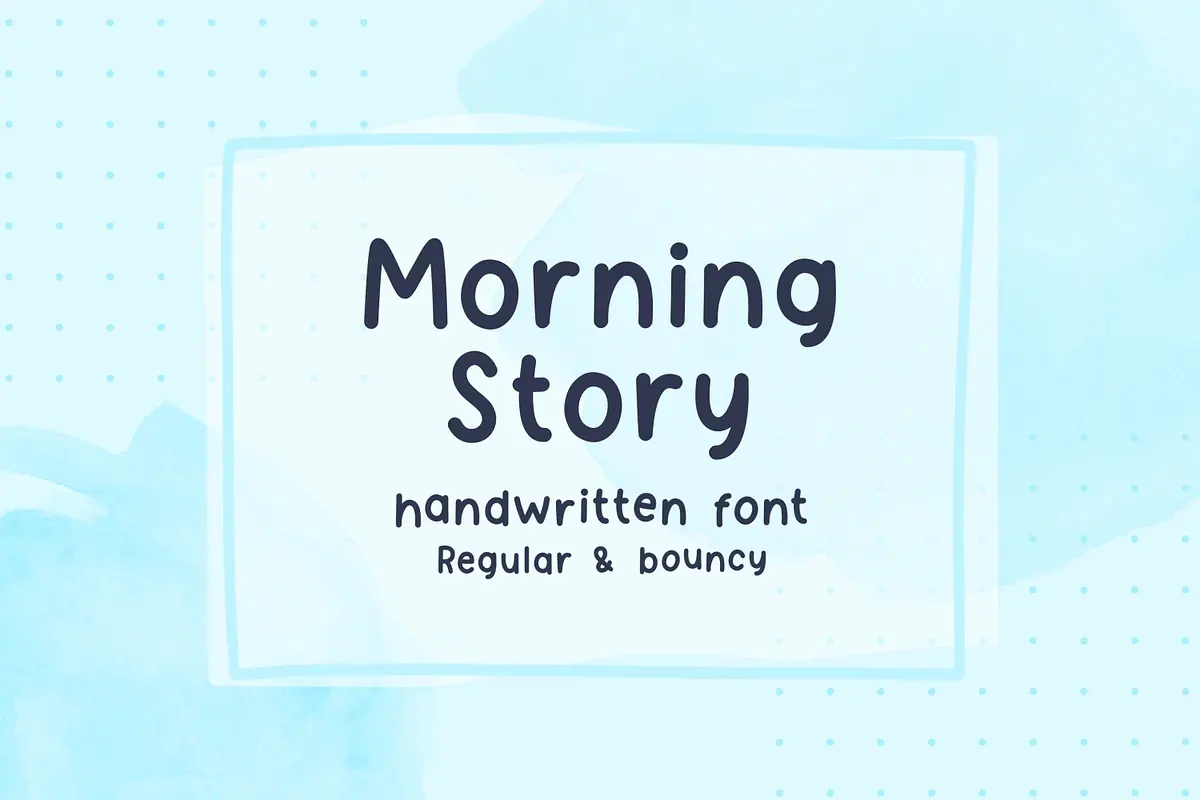
Morning Story cute handwritten font Free Download
Morning Story Cute Handwritten Font Free Download
Morning Story Cute Handwritten Font Free Download is an adorable and heartwarming typeface that captures the innocence and charm of a handwritten note. With its soft curves and playful flow, Morning Story is ideal for children’s books, greeting cards, social media posts, planner designs, and branding that calls for a friendly, personal touch.
This font radiates warmth and joy, bringing a handmade, cozy feel to your creative work. It includes uppercase and lowercase letters, punctuation, multilingual support, and works smoothly on both Mac and Windows systems.